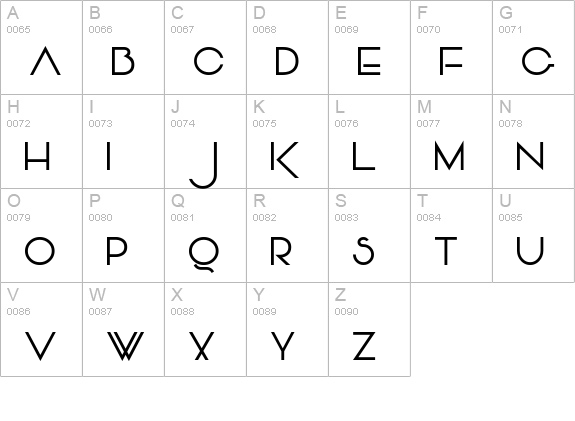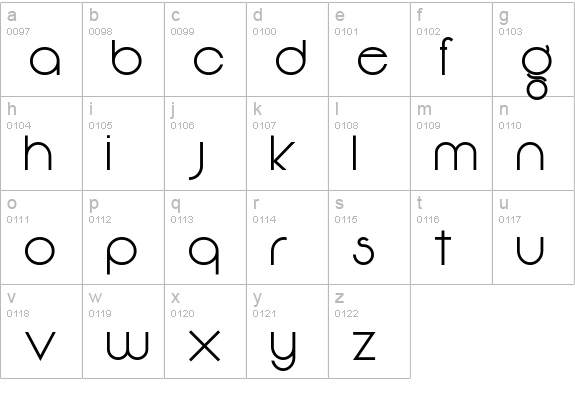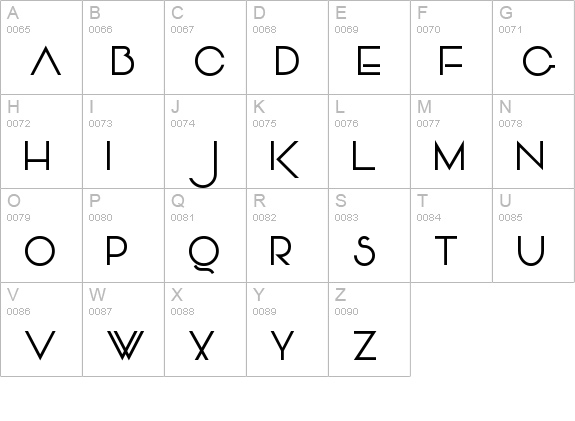
Vonique 92 font is a beautiful and elegant typeface that exudes sophistication and style. Its graceful curves and delicate letterforms make it perfect for adding a touch of class to any design project. This font is not only visually stunning, but it is also incredibly versatile. Whether used for invitations, signage, logos, or headlines, Vonique 92 font will always make a statement. One of the best things about Vonique 92 font is that it is free! Yes, you read that right. This amazing font is freely available to download at FontsMarket.com. So, you can bring your creative ideas to life without breaking the bank. With Vonique 92 font, you can elevate your designs to new heights. Its unique and timeless aesthetic will captivate your audience and leave a lasting impression. So why wait? Go ahead and download Vonique 92 font today and unlock a world of design possibilities.